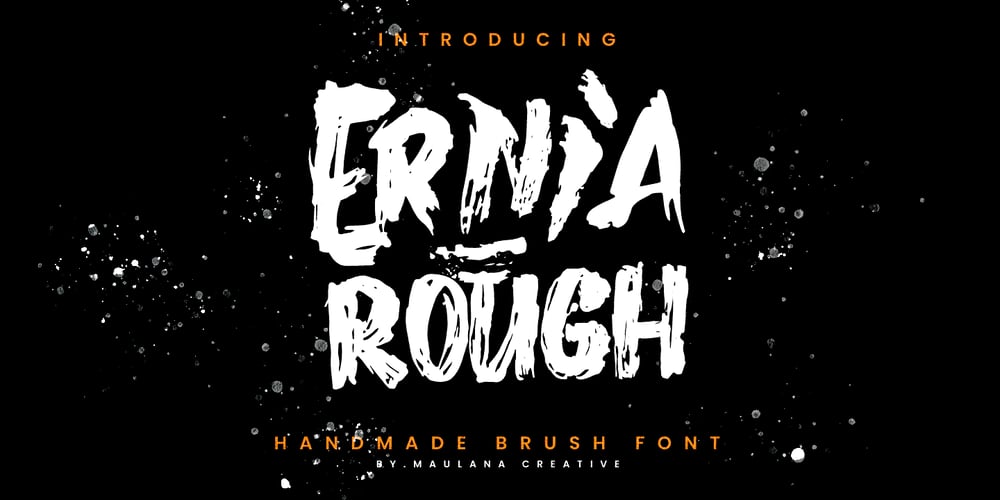
MC Ernia Rough Font Family was designed by Gilang Maulana and published by Maulana Creative. MC Ernia Rough contains 1 styles and family package options. Ernia Rough handmade brush font. Heavy stroke, fun character with a bit of ligatures. To give you an extra creative work. Ernia Rough handmade brush font support multilingual more than 100+ language. This font is good for logo design, Social media, Movie Titles, Books Titles, a short text even a long text letter and good for your secondary text font with script or serif. Make a stunning work with Ernia Rough handmade brush font. Cheers, Maulana Creative